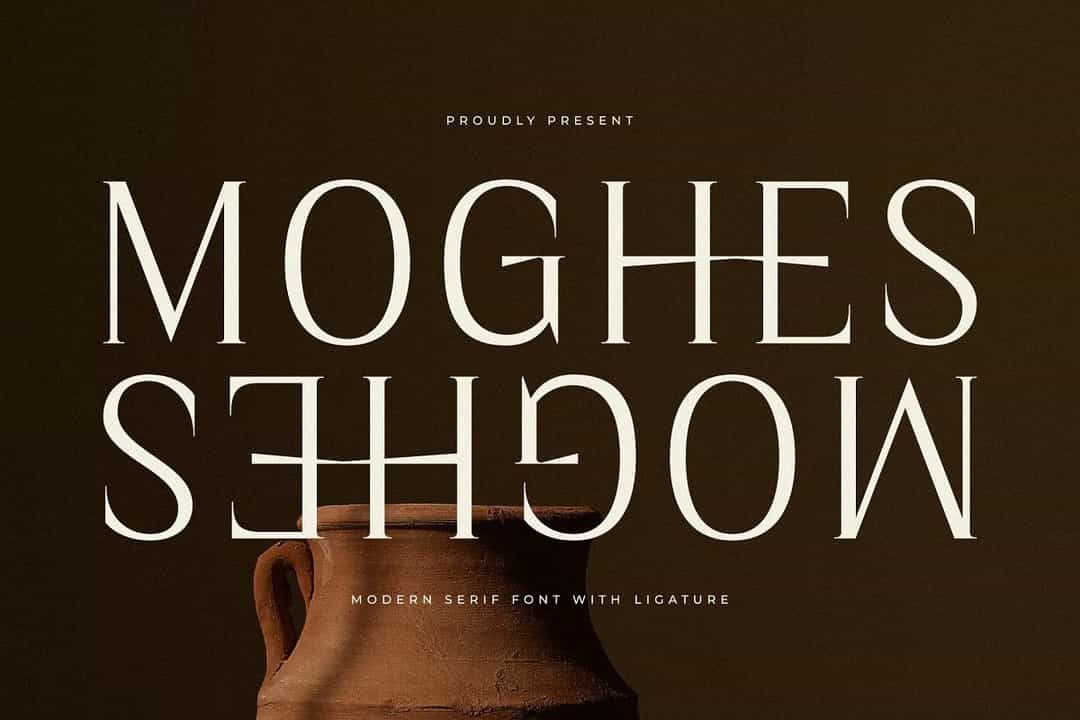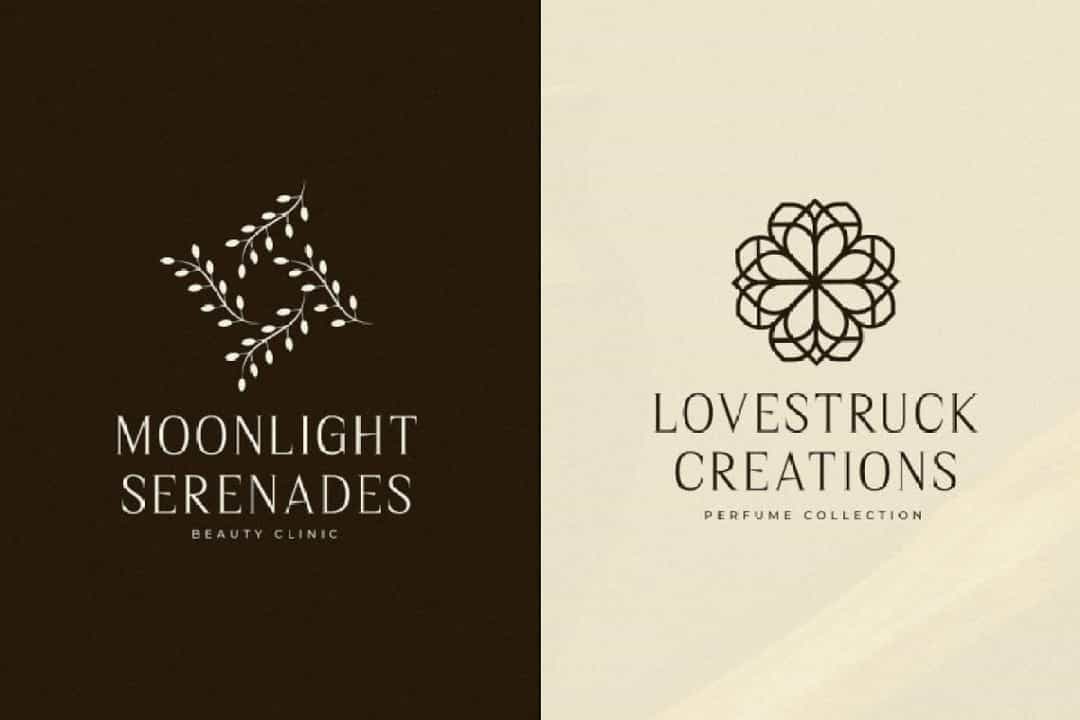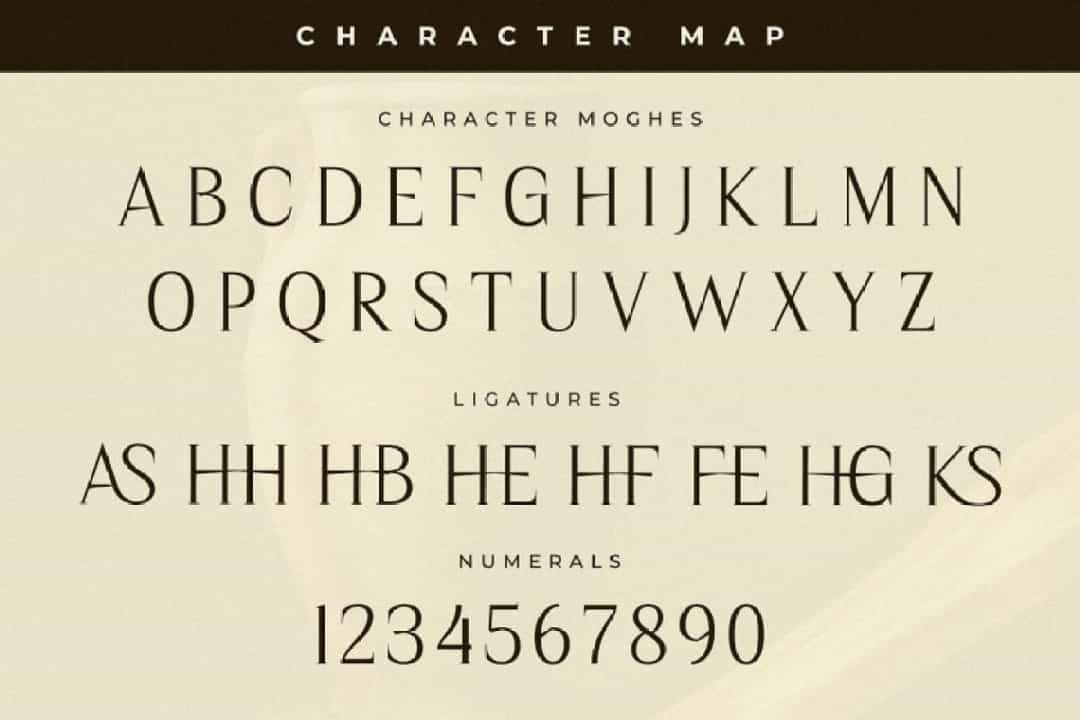
Moghesis an elegant and modern serif typeface, featuring its own distinct style and appearance. Perfect for creating luxurious logos, movie or book titles, fashion brand clothing designs, magazine letters and quotes; Moghes is an all-purpose serif font perfect for sophisticated logos, movie name design projects and so much more.